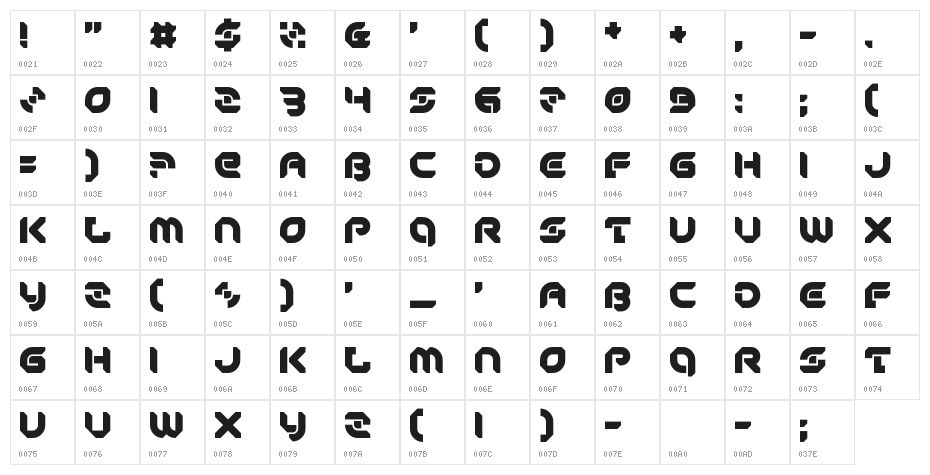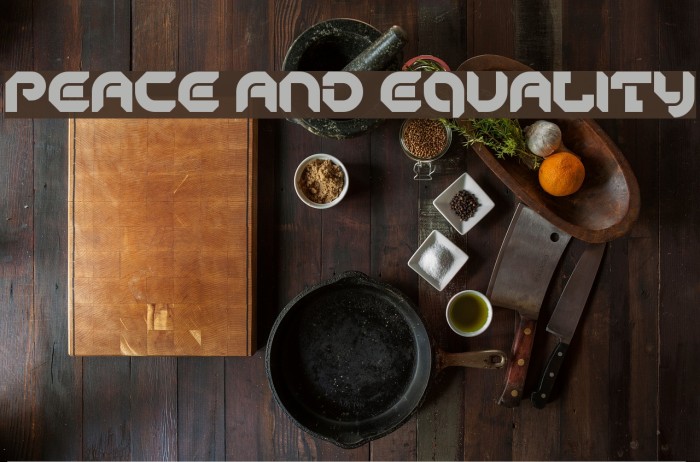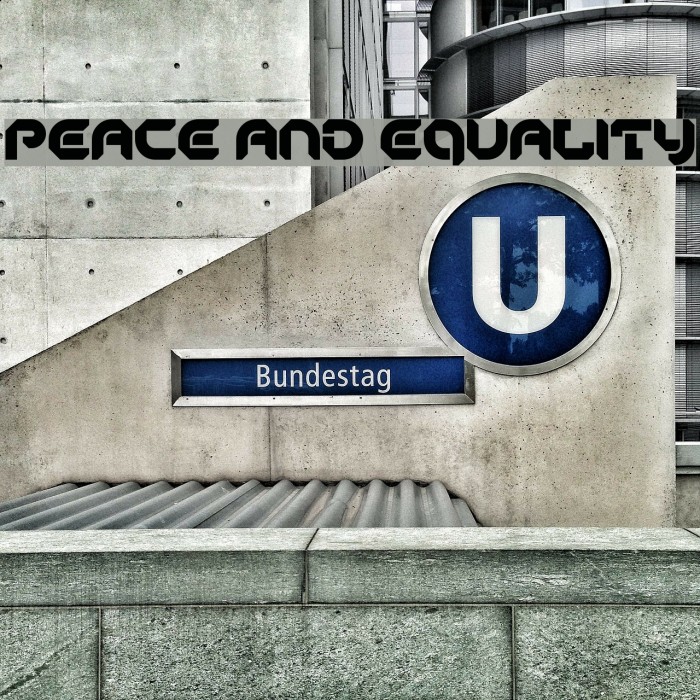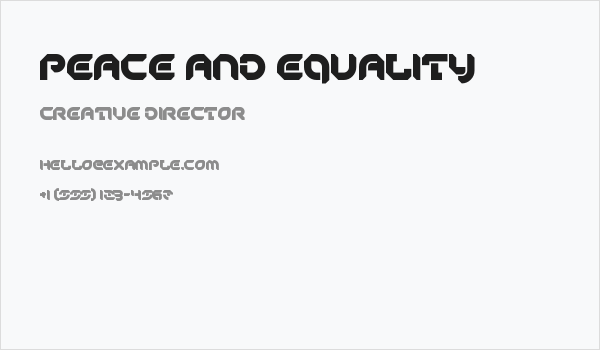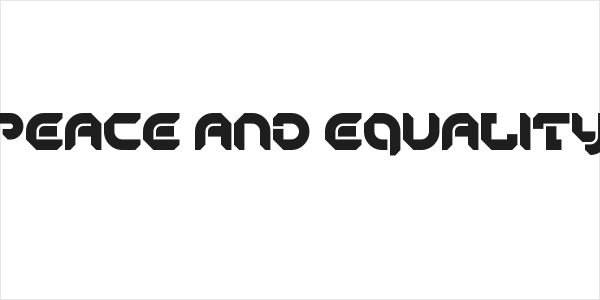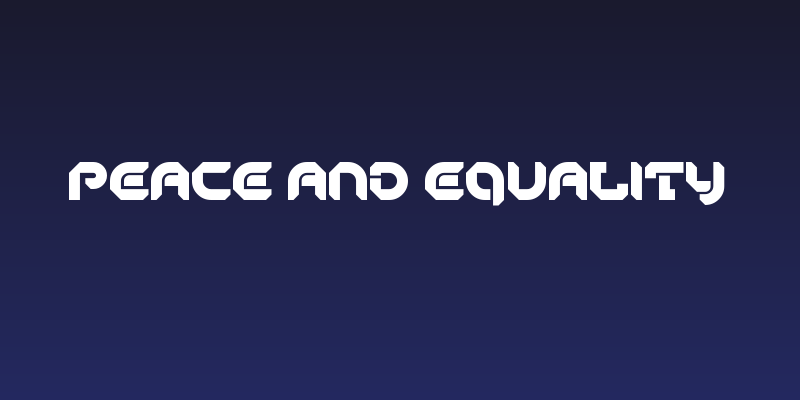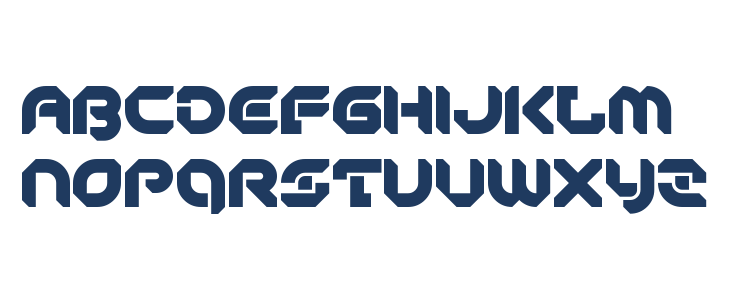
Peace And Equality Font
Peace And Equality Description
This font features a bold, geometric design with a futuristic and industrial feel. The characters are constructed with thick, block-like shapes and sharp angles, giving them a strong and commanding presence. The uniformity in the design creates a cohesive look, while the unique cutouts and negative spaces add an element of intrigue and modernity. The uppercase and lowercase letters maintain a consistent style, with the lowercase mirroring the uppercase in form and structure. The numerals and special characters follow the same design principles, ensuring a harmonious appearance across all elements.